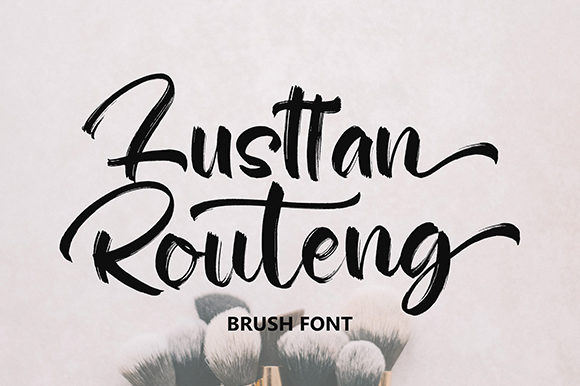
Lusttan Routeng Font
Meet Lusttan Routeng, the font that dances with graceful curves and captivates with its bold strokes. This exquisite script font is a symphony of elegance, embodying the essence of creativity and artistic flair.
Journey through a realm of visual delight as Lusttan Routeng's enchanting swashes unfold, adding a touch of magic to your designs. Feel the power of self-expression as you explore the limitless possibilities that await within this remarkable font.
With Lusttan Routeng, your words take on a life of their own, exuding a personality that speaks volumes. From logos that command attention to invitations that leave a lasting impression, this font is your perfect companion for crafting designs that resonate with your audience.
Step into a world where creativity flourishes and ideas ignite. Lusttan Routeng is more than just a font; it's a gateway to unlocking your creative potential, transforming your visions into stunning realities. Let your imagination soar as you discover the limitless possibilities that lie within this extraordinary font.
Whether you're a seasoned designer or just starting your creative journey, Lusttan Routeng is your trusted guide, leading you through the enchanting world of typography. Its user-friendly nature makes it accessible to all, empowering you to create designs that captivate and inspire.
So, embrace the allure of Lusttan Routeng, let your creativity run wild, and embark on a design adventure that will leave you spellbound. Download now and unlock the door to a world where beauty and imagination reign supreme.